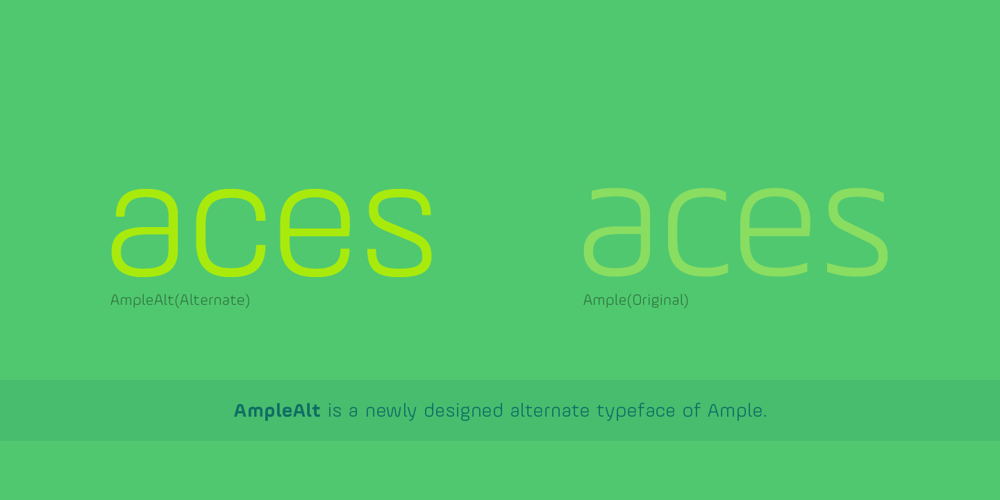
AmpleAlt Font Family was designed by Aakash Soneri and published by Soneri Type. AmpleAlt contains 6 styles and family package options. AmpleAlt is a alternate version derived from Ample type family. AmpleAlt is a display type family, optical mono linear and a bit squarish in nature. It has smooth curve instead of sharp angle formed by the junction of two strokes, which is a prominent feature of its design. It is designed to be a little eye-catching yet legible. It has clear and distinguishable letterforms, which helps to elaborate and emphasis the message. It is graphically strong and command viewer’s attention. The overall appearance of type is suitable in setting it as heading, title, headline, etc. The type family consists of six weights viz. Thin, ExLight, Light, Regular, Medium and Bold. Considering the nature of this type family, italics have been excluded. AmpleAlt is designed by Aakash Soneri in the year 2014.